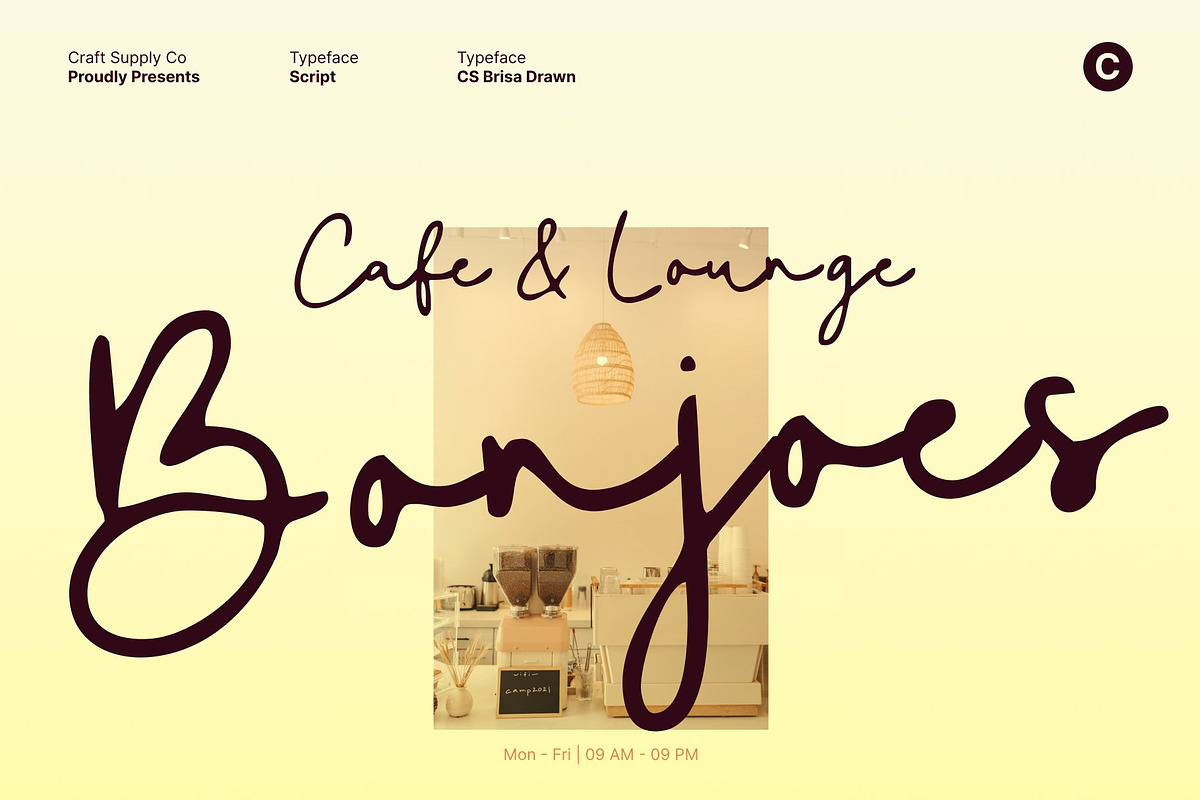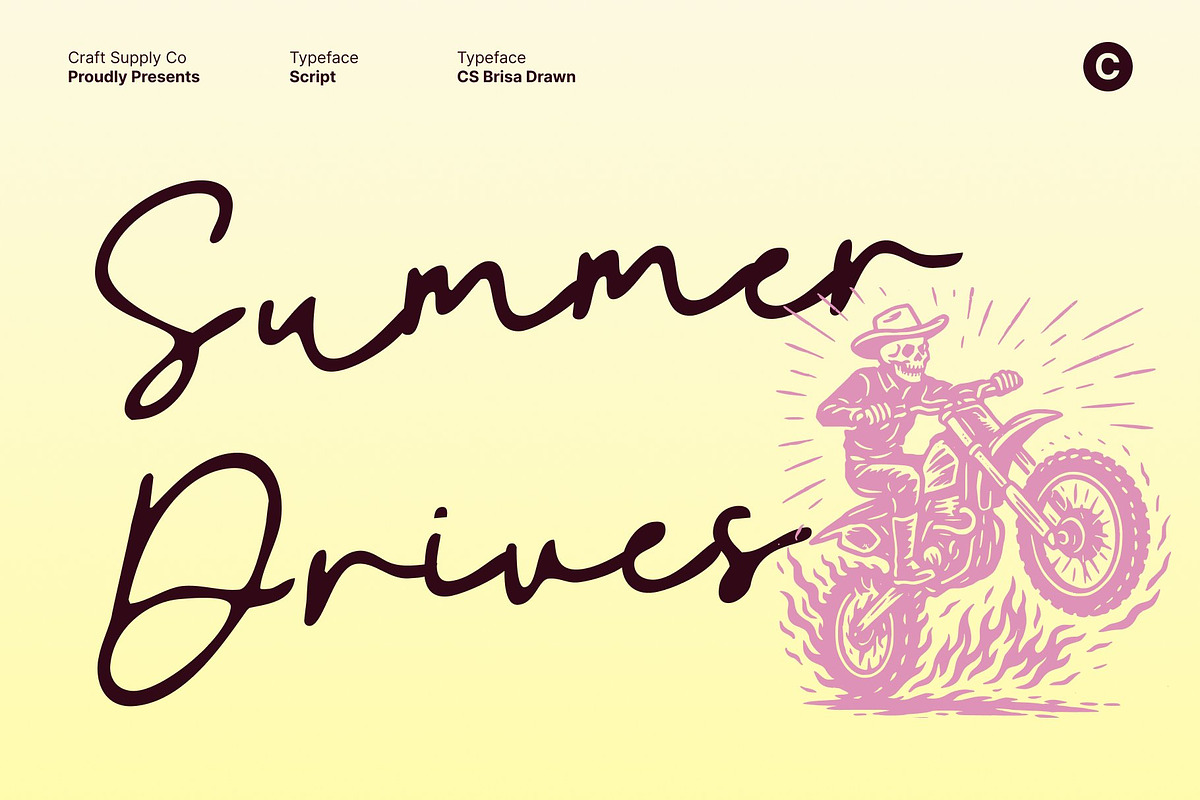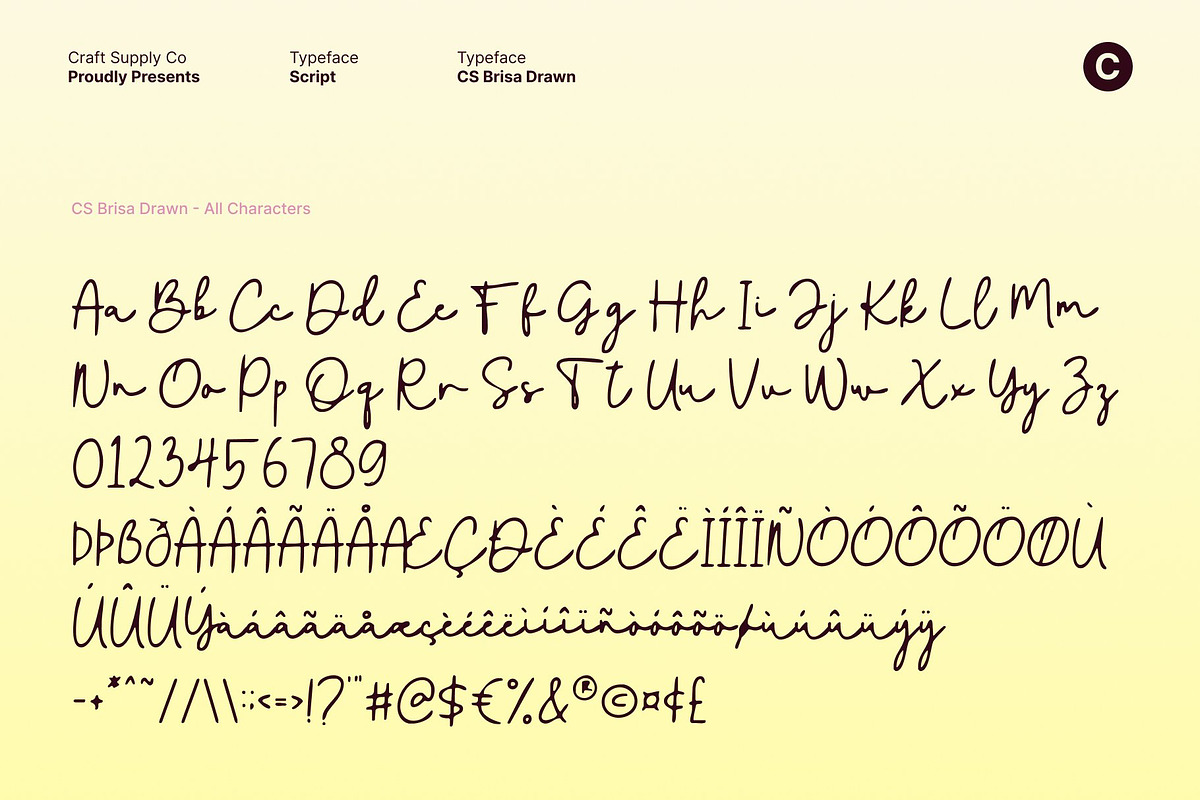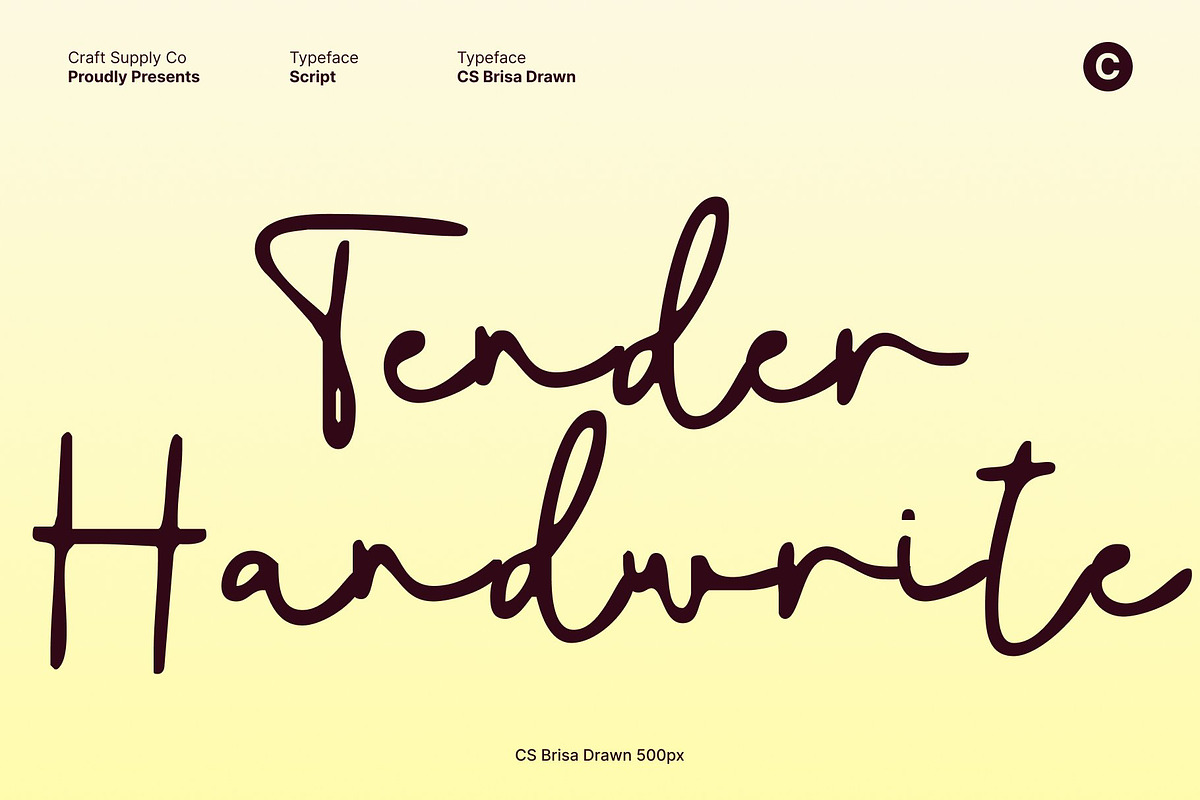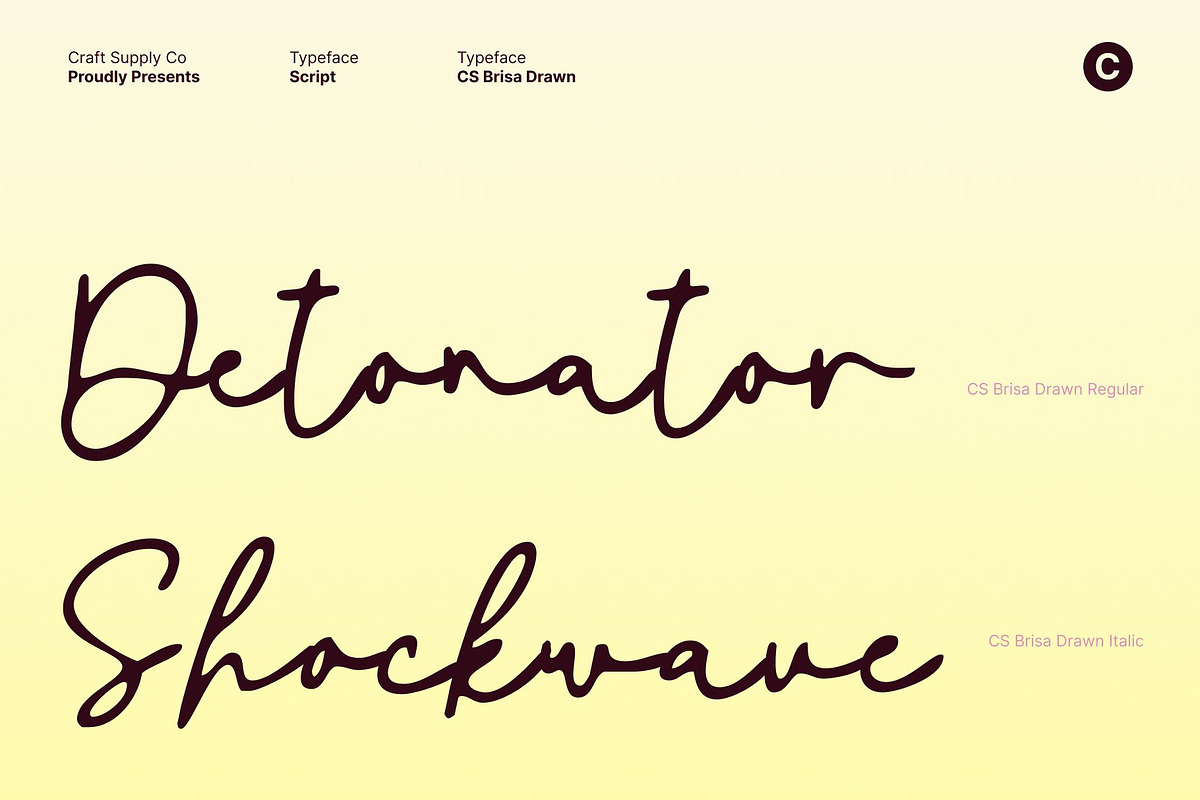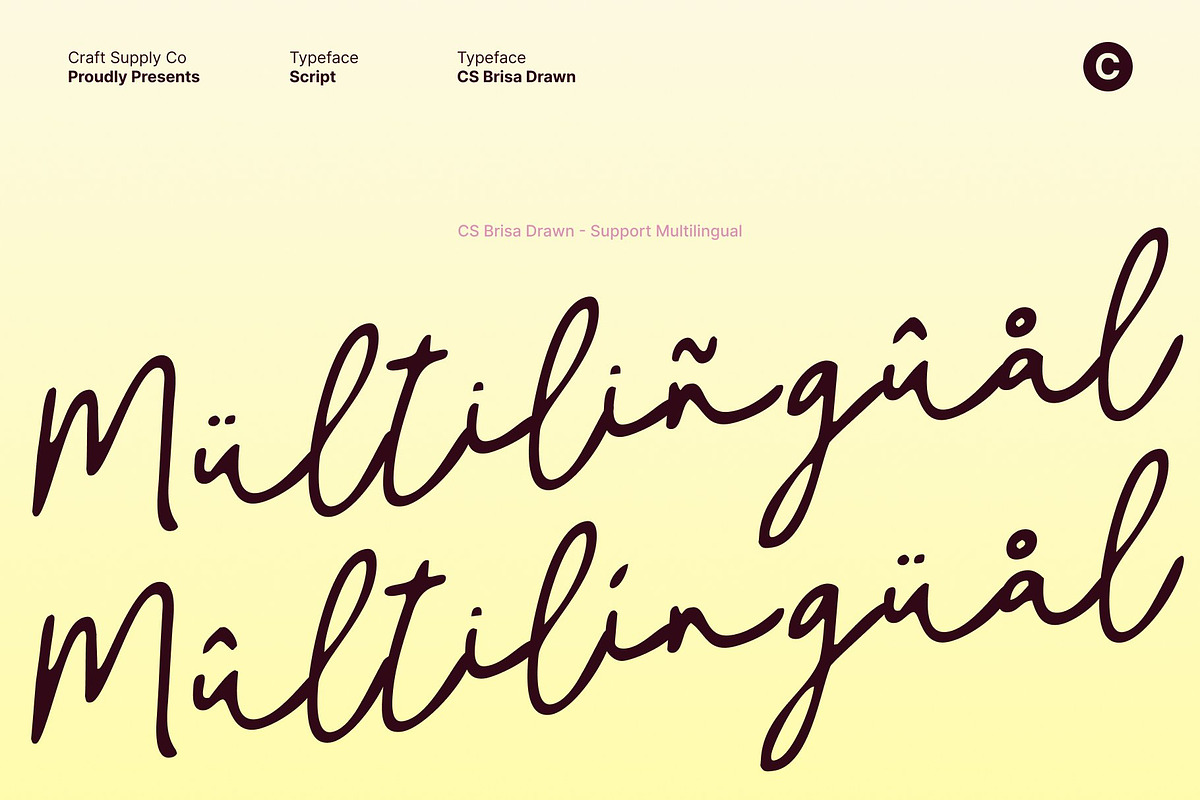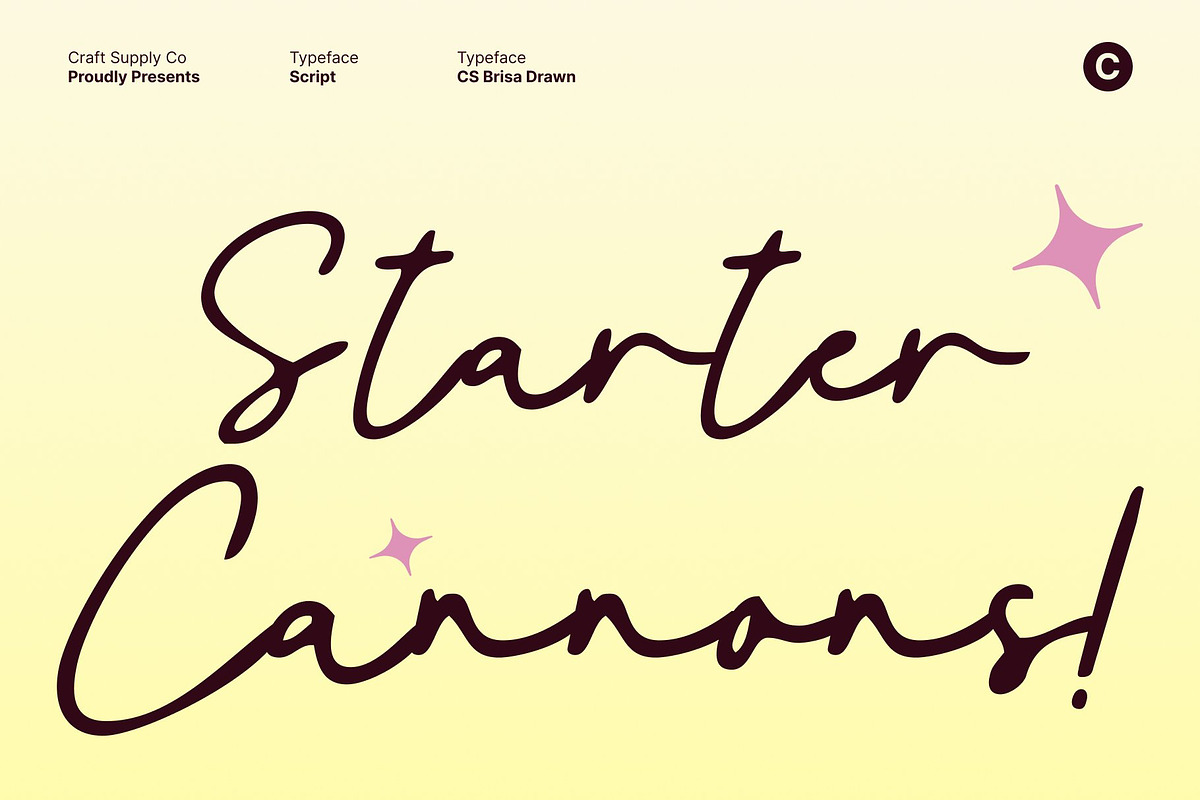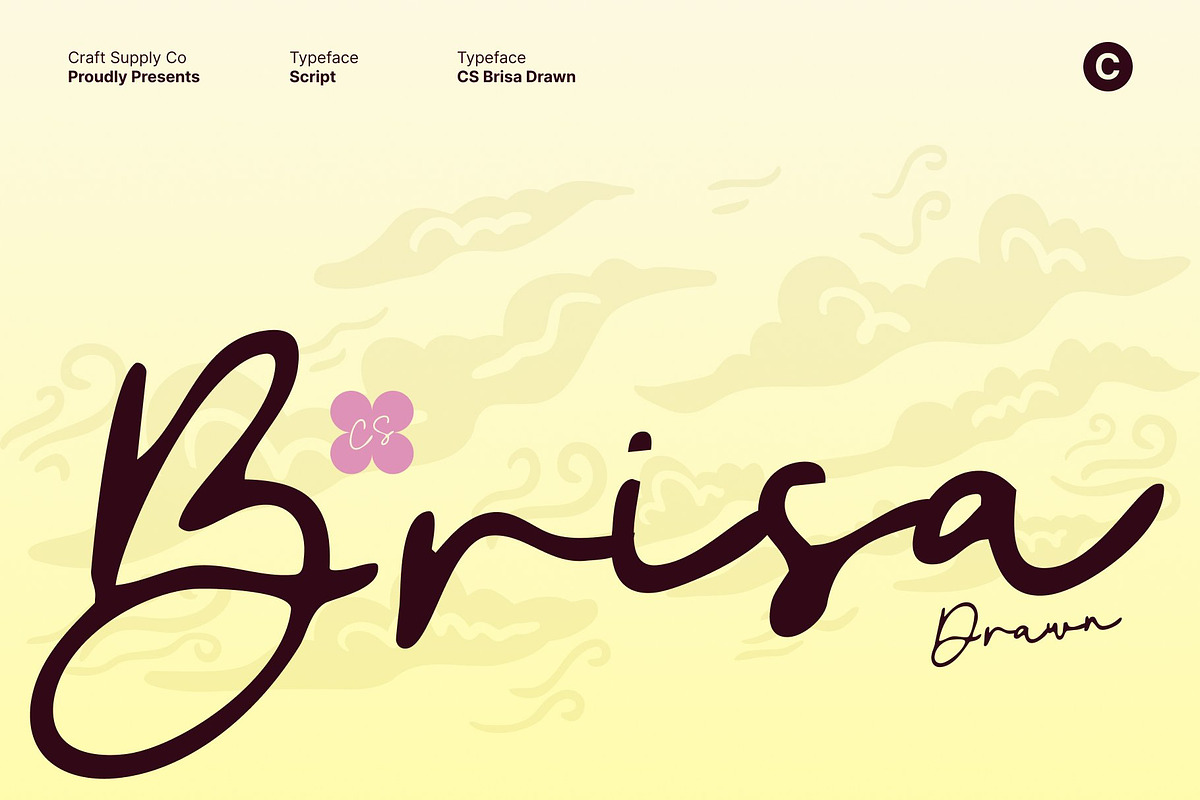
CS Brisa Drawn
CS Brisa Drawn – Grace in Motion with Timeless Style
Monoline Script Font with Flowing Elegance This is an elegant monoline script font defined by smooth, flowing lines and a refined rhythm. Each letter connects effortlessly, creating a graceful visual movement that feels balanced and sophisticated. Its timeless style brings a polished charm to any design, making it especially suitable for refined and high-end creative projects.
Graceful Curves for Refined Expression Designed with consistent monoline weight, this font showcases gentle curves that express calmness and confidence. Every stroke feels intentional and fluid, enhancing readability while maintaining an elegant presence. The harmonious flow allows the font to shine in both prominent headlines and subtle decorative accents.
Stylish Rhythm with Artistic Drawn Texture The modern rhythm of this font is enriched by a soft drawn texture that adds warmth and personality. This subtle handmade effect keeps the script from feeling rigid, giving it a natural, artistic touch while preserving its clean structure. The result is a script that feels both contemporary and timeless.
Perfect for Romantic and Luxury Designs From wedding invitations and boutique branding to fashion editorials and elegant packaging, adapts beautifully to projects that require grace and sophistication. Its flowing form, artistic texture, and refined style ensure that every word appears elegant, confident, and beautifully composed.
- CS Brisa Drawn Regular
- CS Brisa Drawn Italic